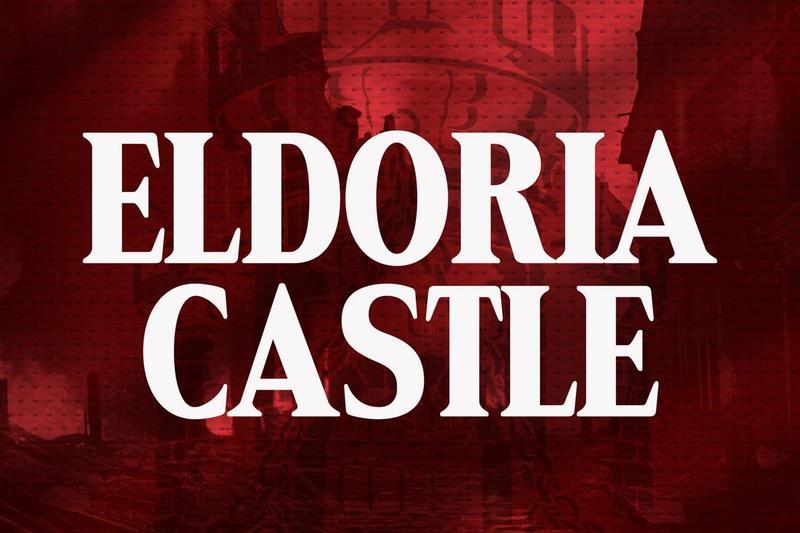
Eldoria Castle – Classic Display Font TXQHM7P
Eldoria Castle is a timeless display font inspired by classic elegance and vintage craftsmanship. Its refined serif letterforms bring sophistication to branding, editorial layouts, luxury packaging, wedding designs, book covers, logos, and premium marketing materials. Complete with multilingual support, it delivers distinctive typography that enhances creative projects with memorable visual impact.